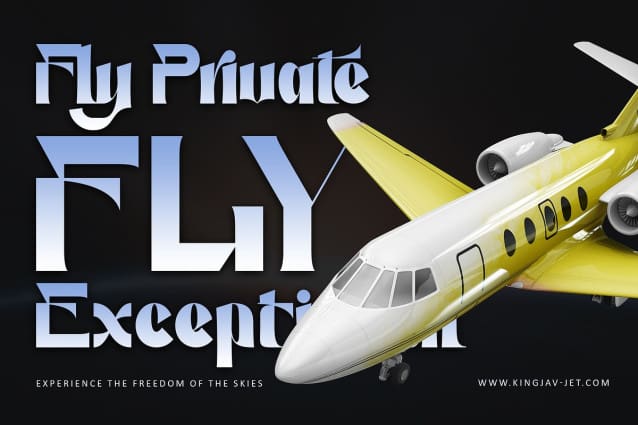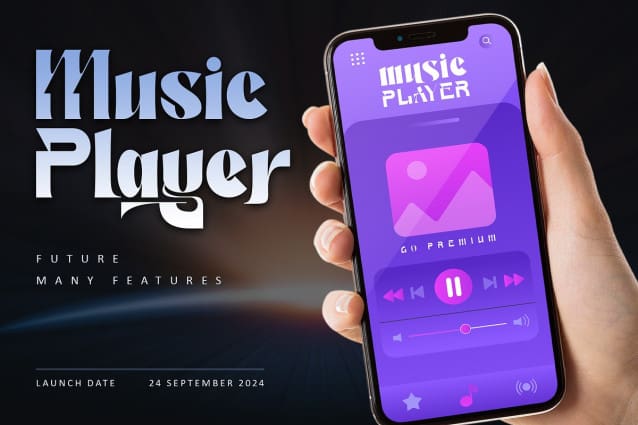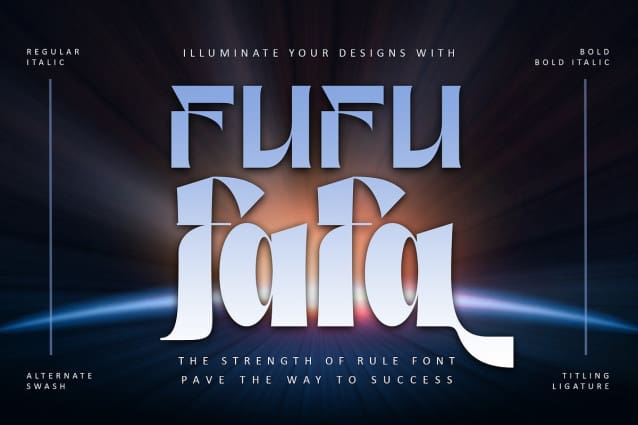
Fufufafa Font
Fufufafa Font, a versatile serif font family that masterfully combines sophistication with playful charm. Available in regular, italic, bold, and bold italic styles, this font family offers endless flexibility for all your design needs. From branding to editorial layouts, Fufufafa delivers a perfect balance of classic elegance and modern appeal. Its PUA encoding provides easy access to a variety of unique glyphs and swashes, ensuring that your projects stand out with refined detail and distinctive flair. Let Fufufafa Font elevate your designs with its timeless and adaptable character.